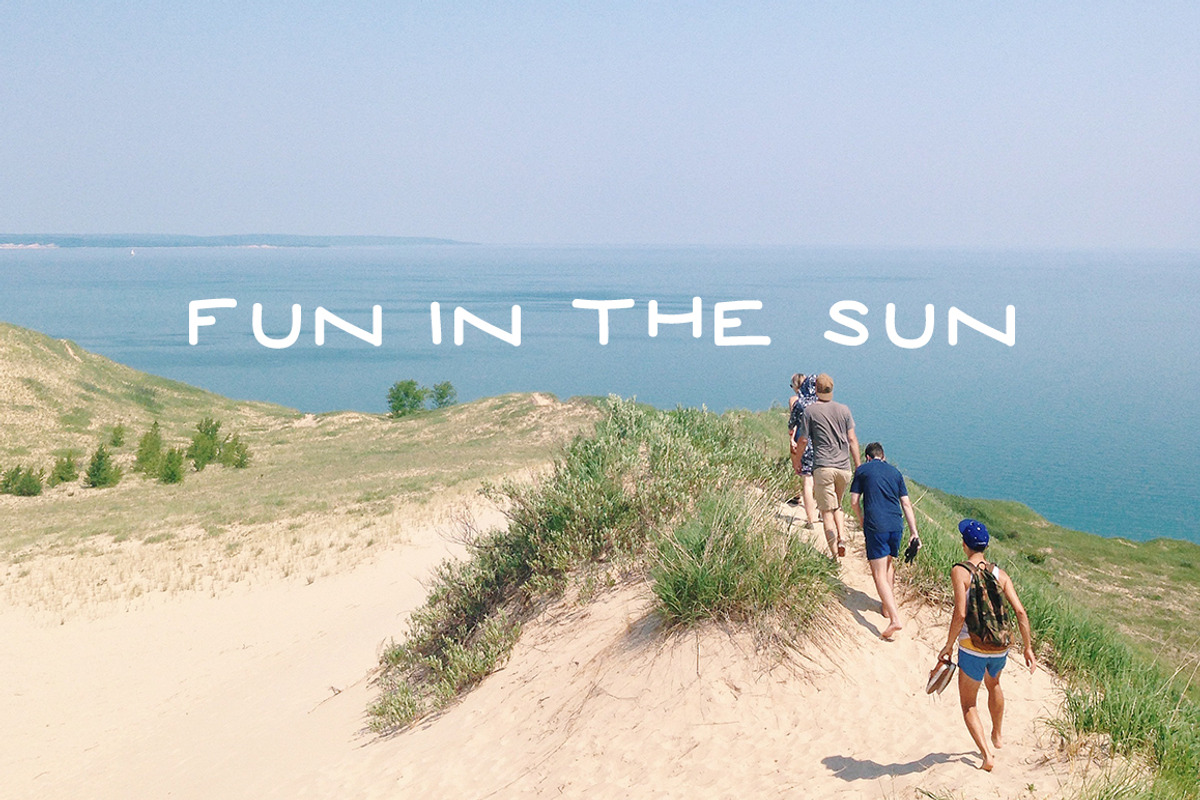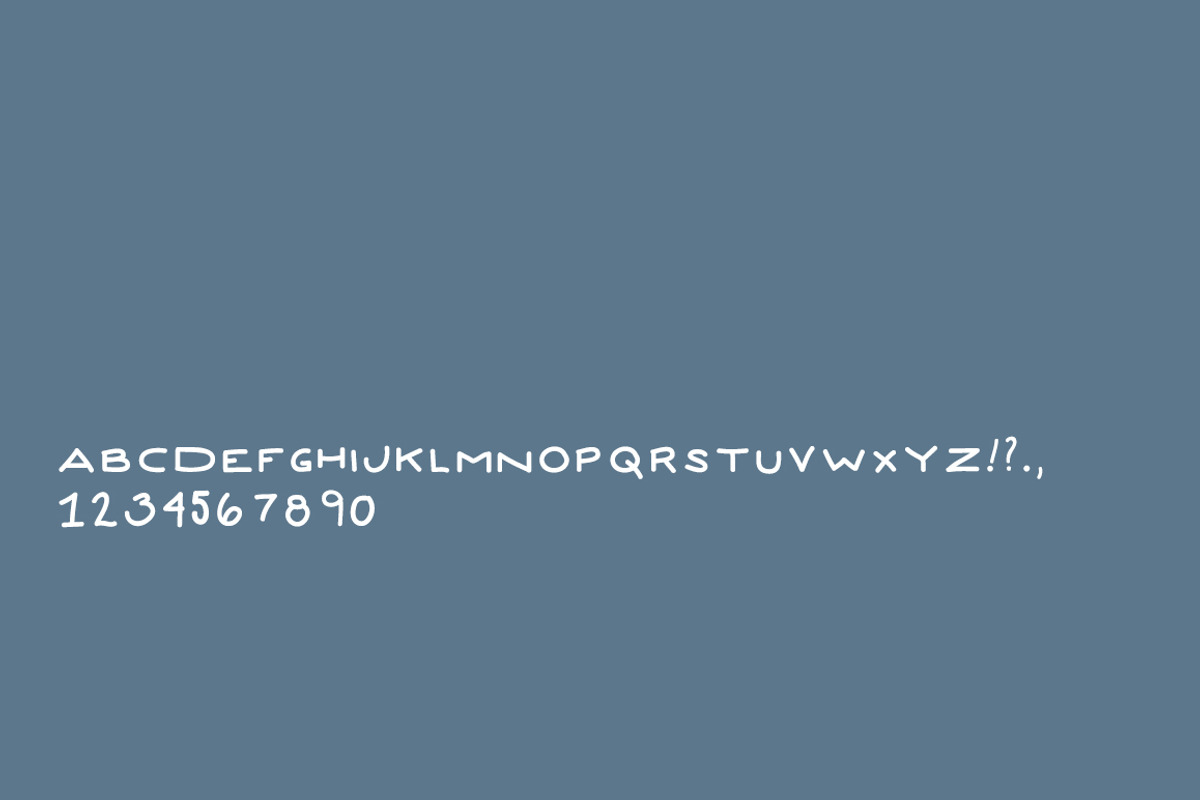
Grow Up - Hand Lettered Font
Grow Up - Hand Lettered Font by The Fresh Exchange is a font selected for branding, posters, packaging, typography.
Why Grow Up - Hand Lettered Font is worth a look
Grow Up - Hand Lettered Font by The Fresh Exchange fits naturally into Branding, posters, packaging, typography.